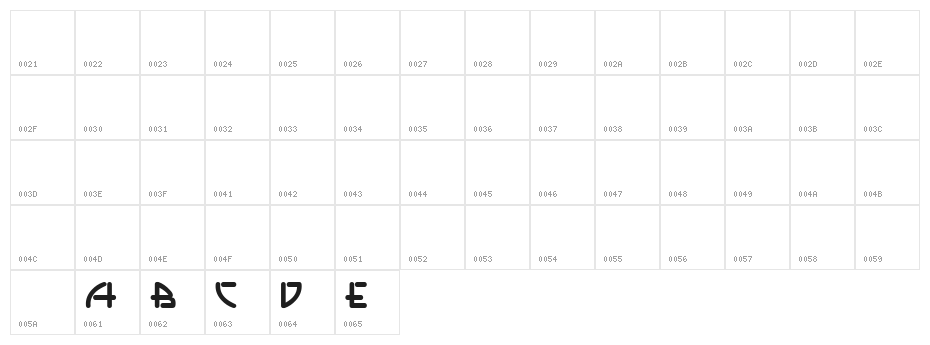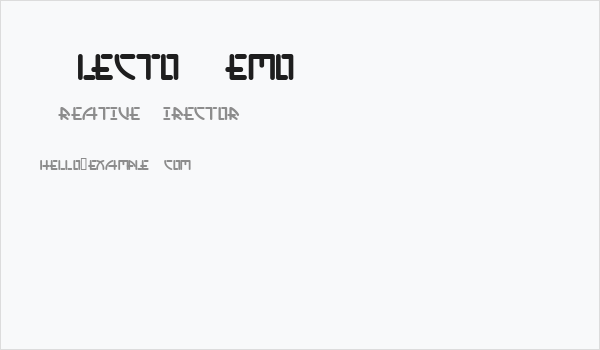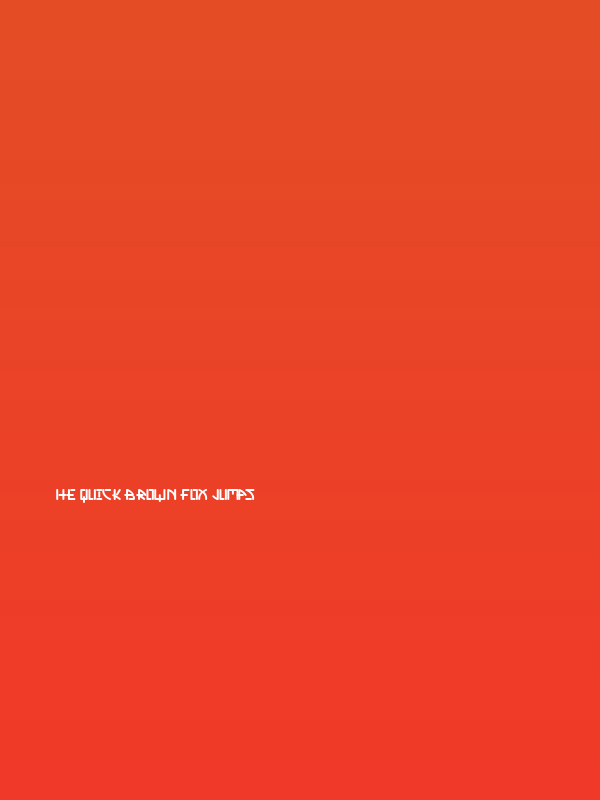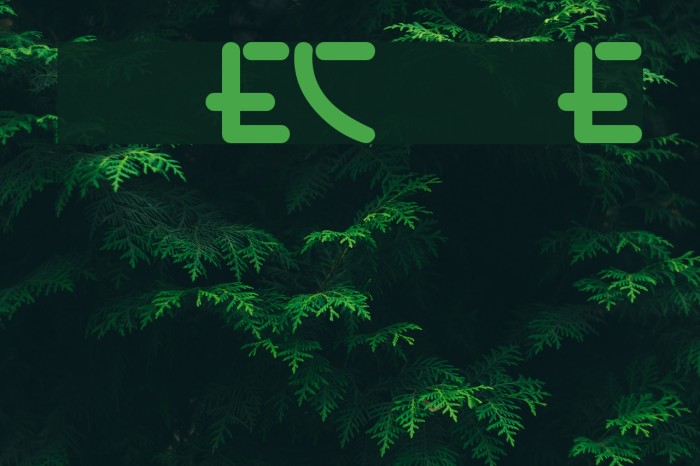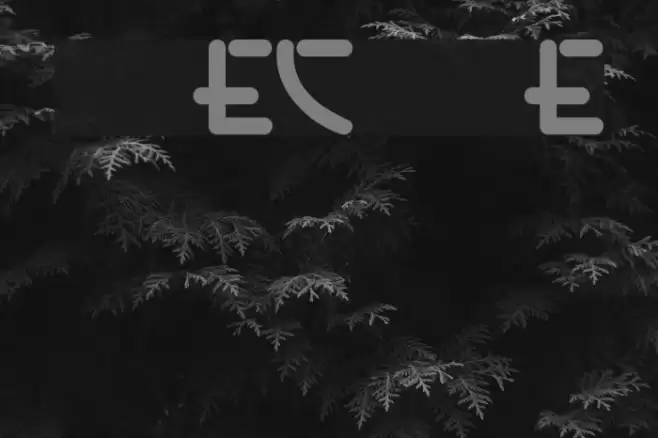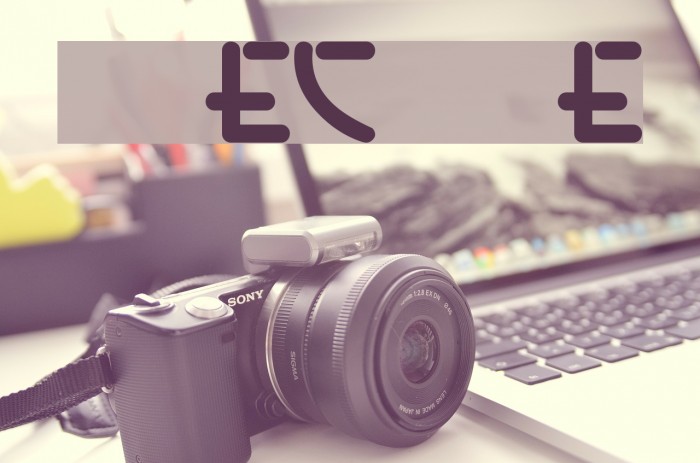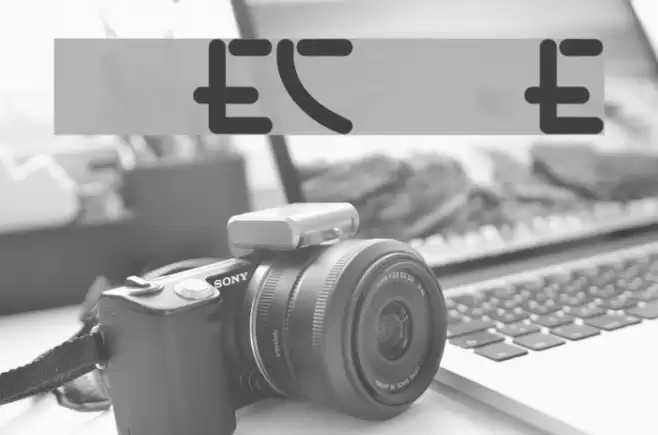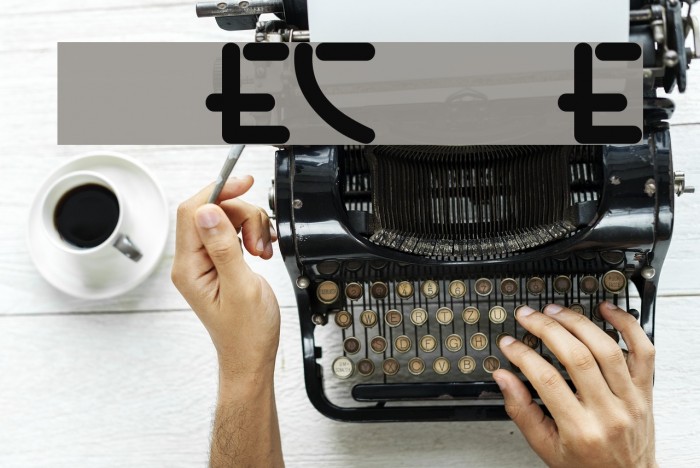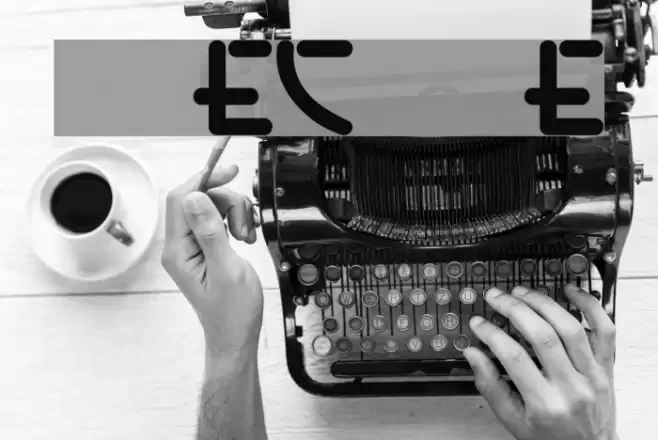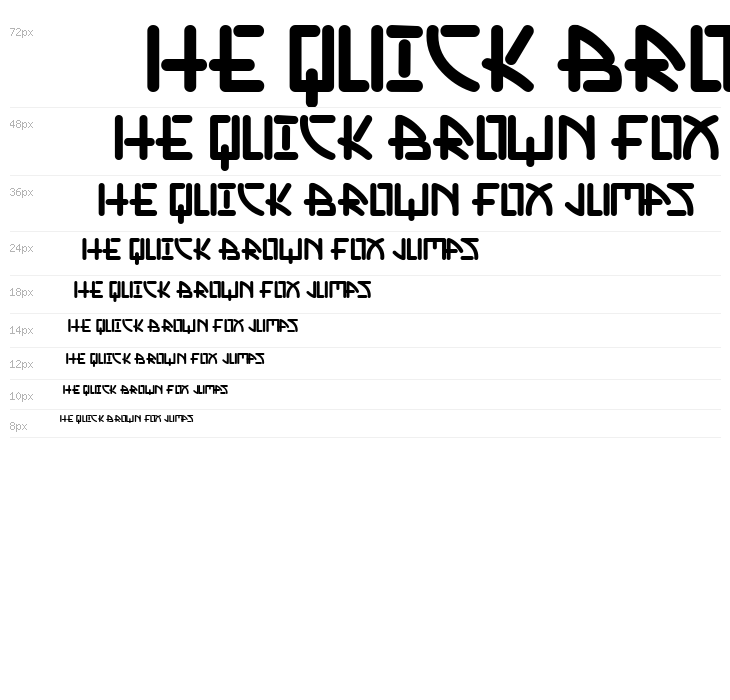
Alecto Demo Font
✎ Futuristic
| Vorgeschlagene Projekte | Ideal for sci-fi themed designs, technology branding, video game titles, and modern art posters. |